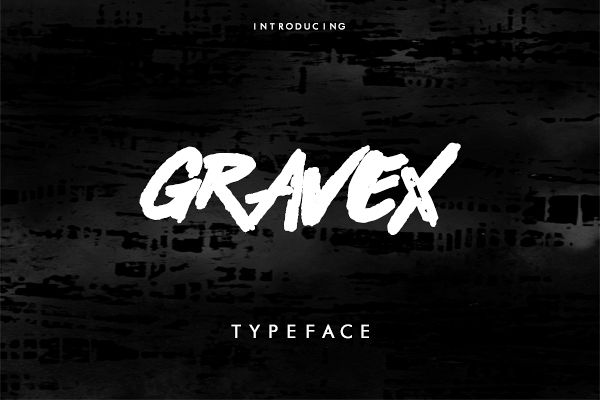
GRAVEX
GRAVEX is Allcaps hand painted typeface is helping you to create the grunge and raw design. it has a rough and slick edge as an uppercase and lowercase.GRAVEX is suitable for Poster, Logos, Clothing, Labels, Print or Digital Ads and etc.GRAVEX comes with All capslock characters, punctuation and numerals.